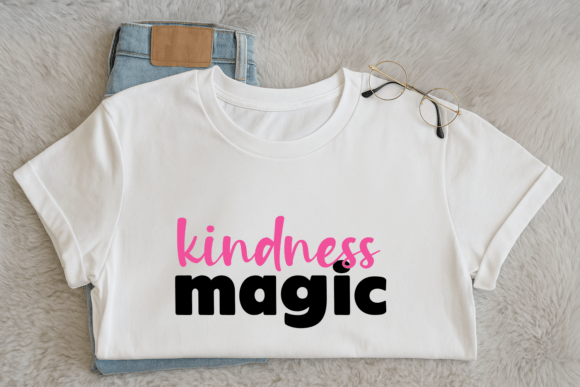
Rainbow Chocolate Font
Introducing Rainbow Chocolate – a cute and playful font duo that combines a bold, colorful display style with a sweet handwritten script. This font is designed to bring happiness, fun, and creativity to your projects.
The Rainbow style gives you chunky, vibrant letters that pop with personality, while the Chocolate script adds a soft, handwritten touch for balance. Together, they make the perfect pair for logos, posters, invitations, children’s books, crafts, stickers, t-shirts, packaging, and party decorations.
Whether you’re designing for kids, celebrations, or playful branding, Rainbow Chocolate is a versatile and fun font duo that will make your words sparkle with joy! Add it to your collection and create designs that are sweet, colorful, and full of life.